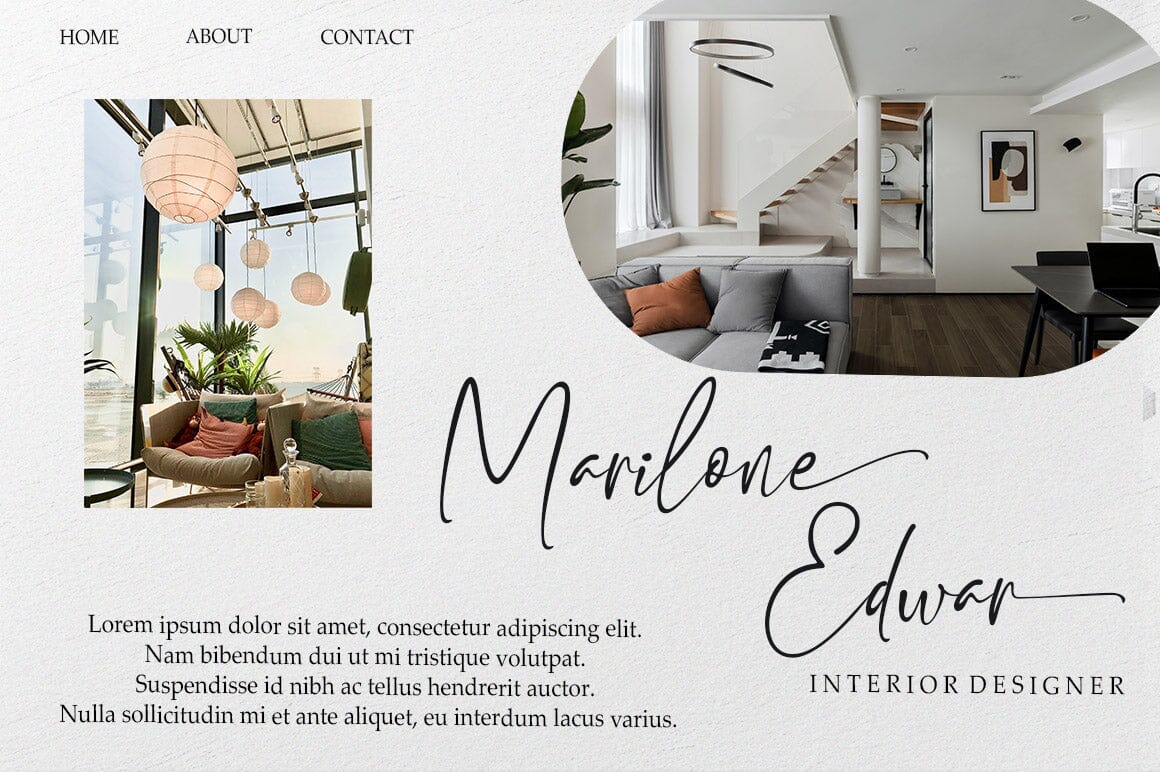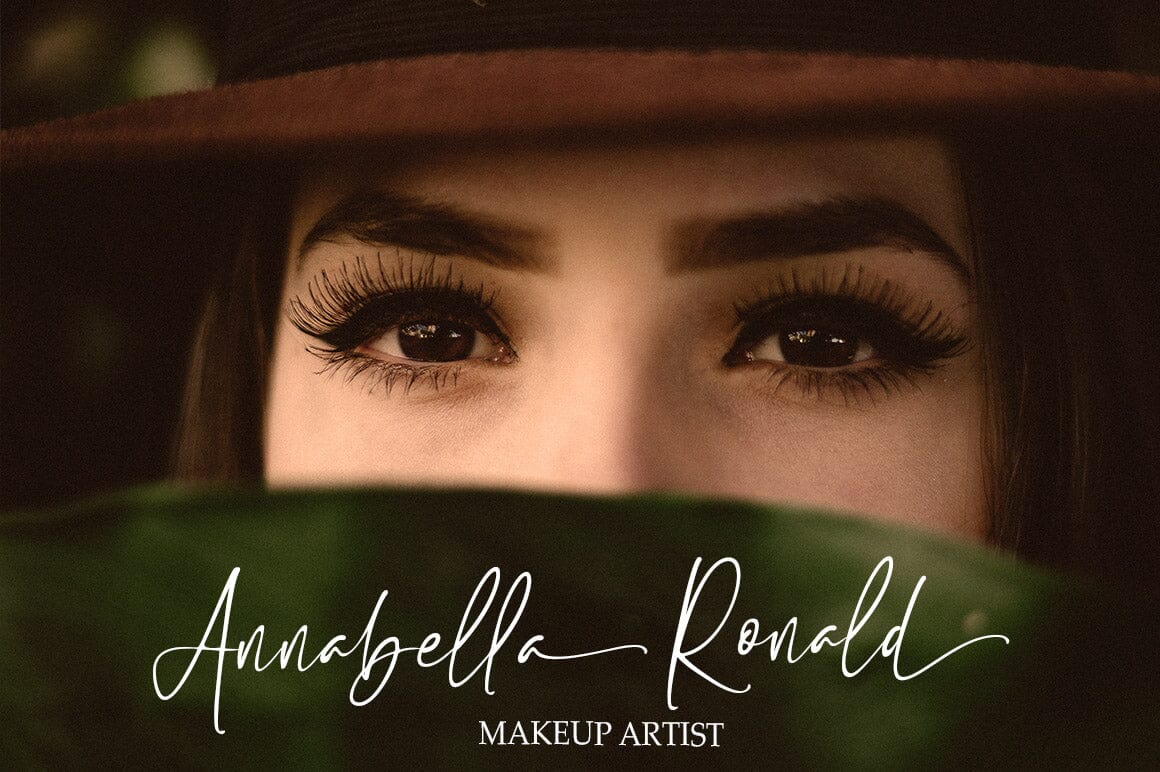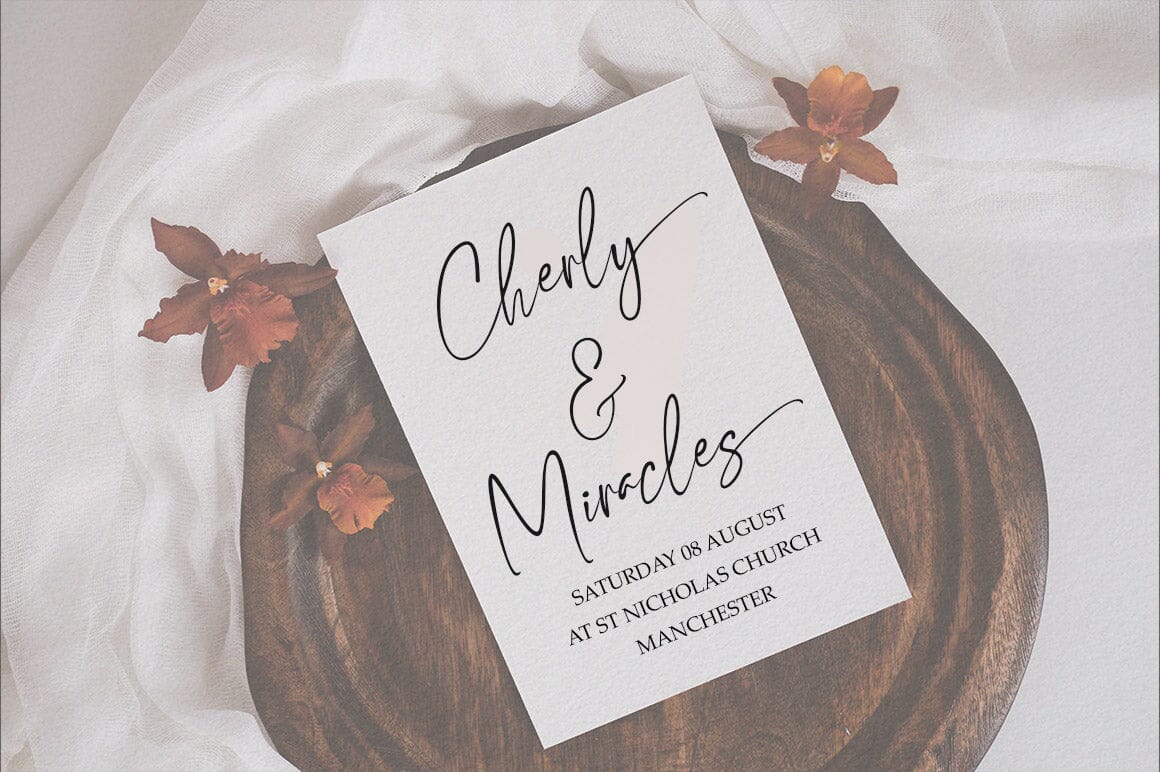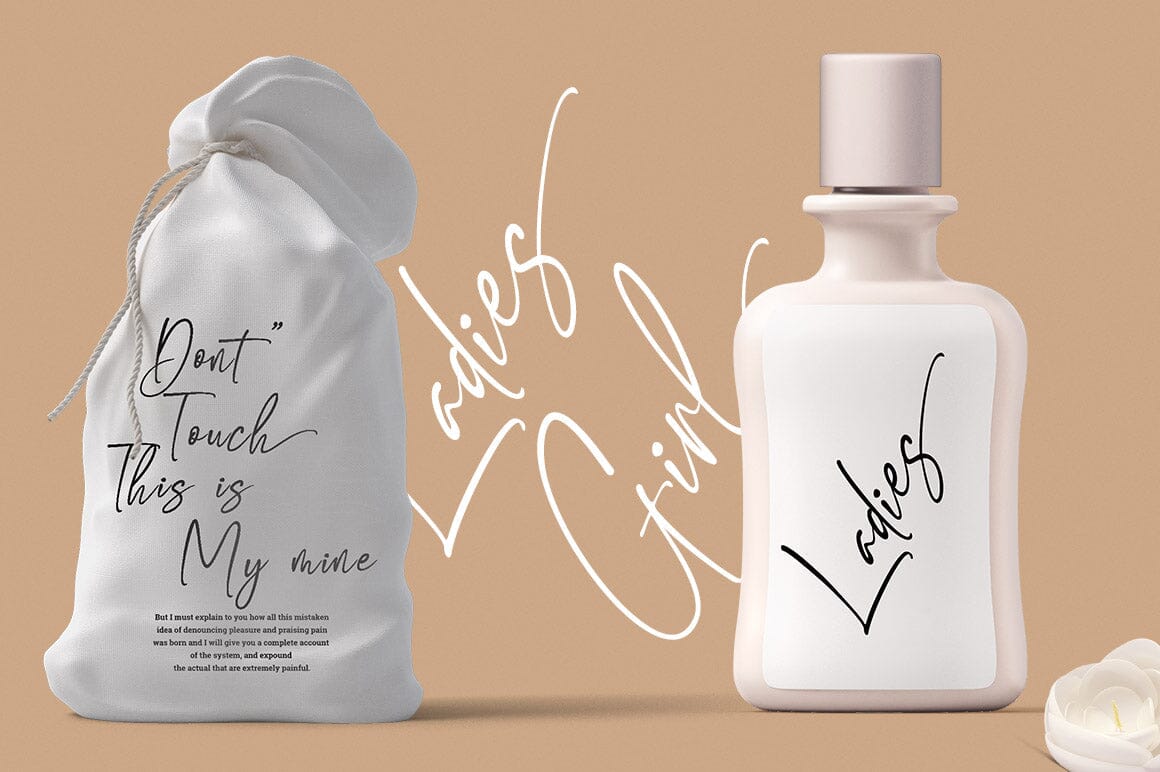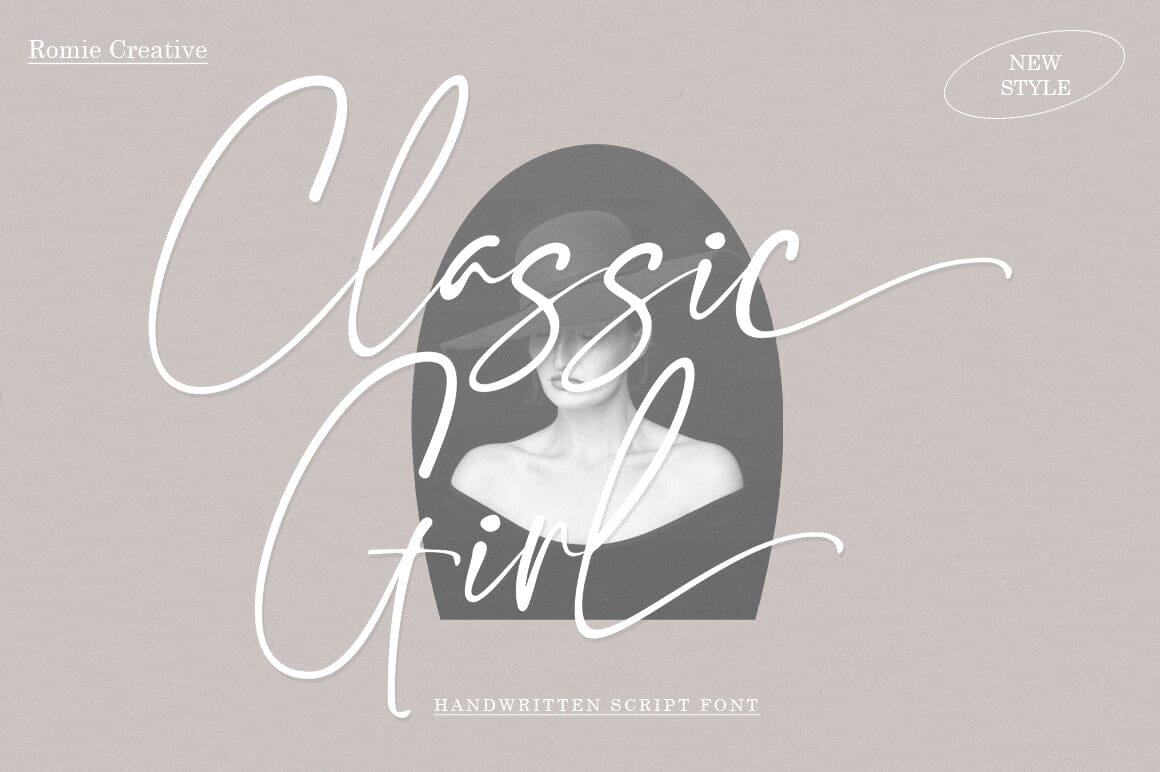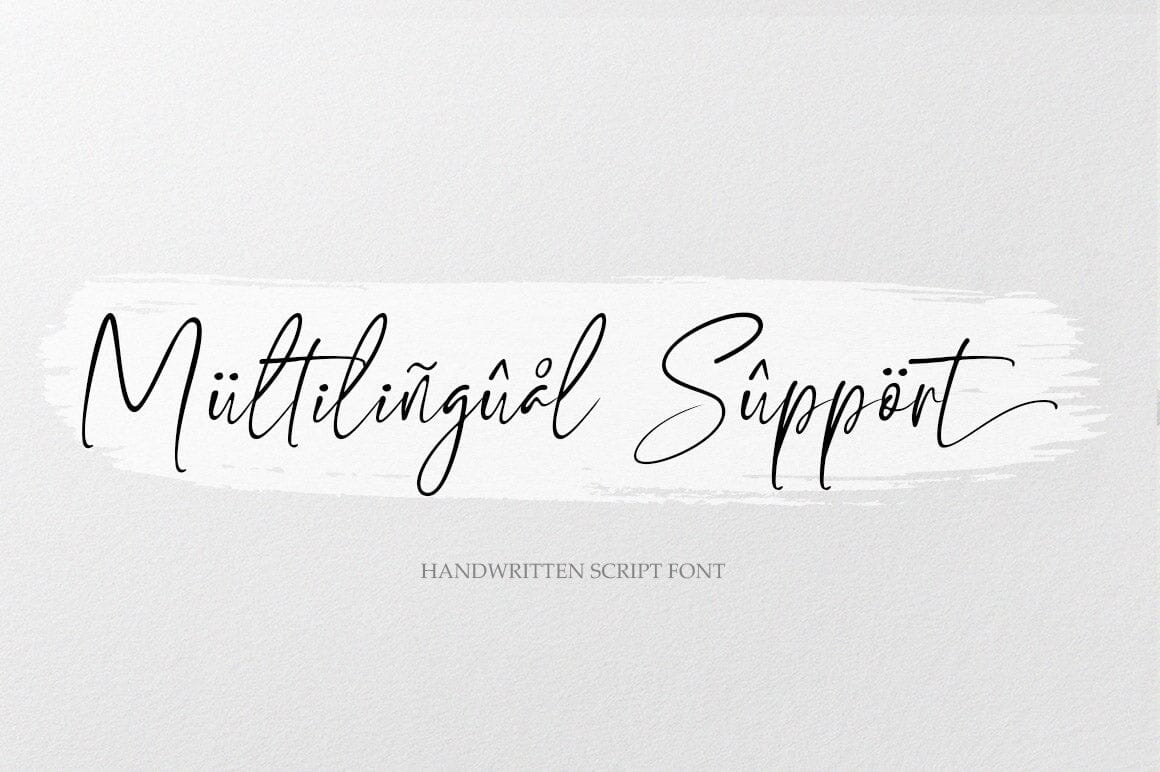
Classic Girl
About Classic Girl
Classic Girl is a unique, elegant and modern handwritten font. which looks like a signature, this font is intentionally made with unique and alternating ligatures. This hand styled look makes it perfect to use in all your design projects be it logos, labels, packaging designs, blog titles, posters, wedding designs, social media posts, Instagram designs, etc.